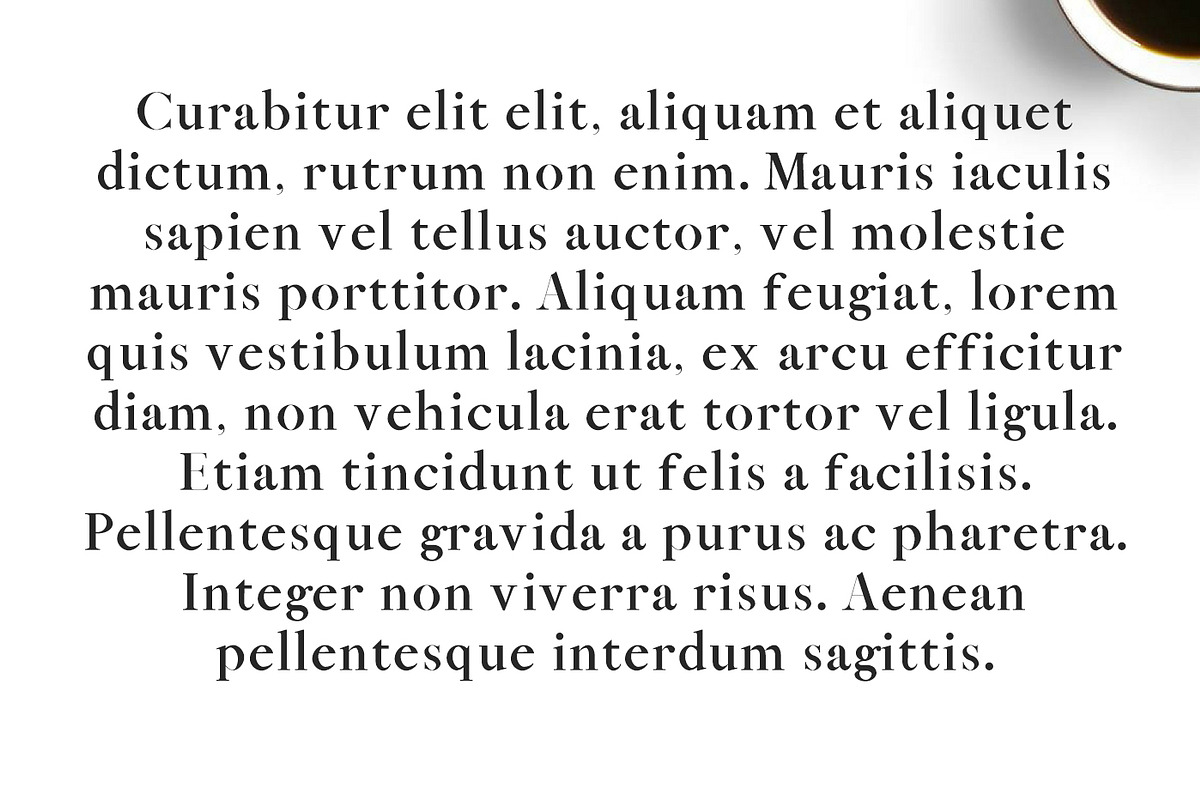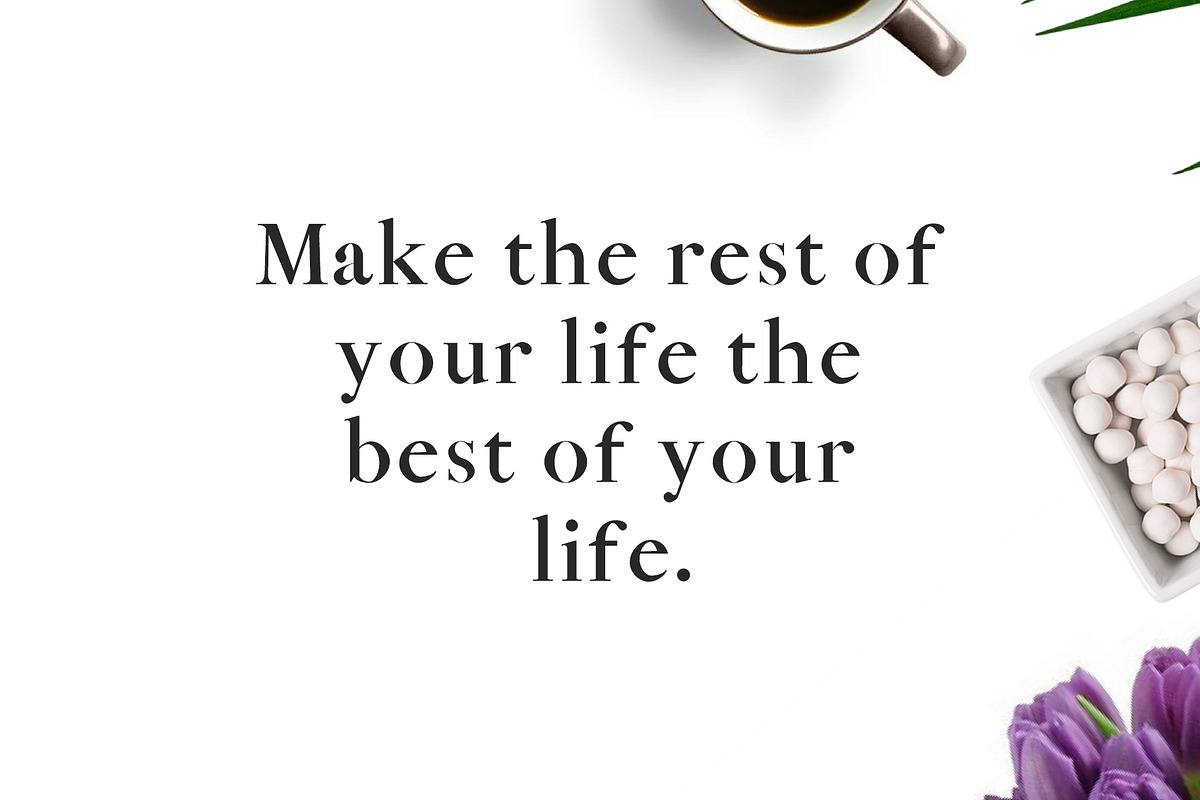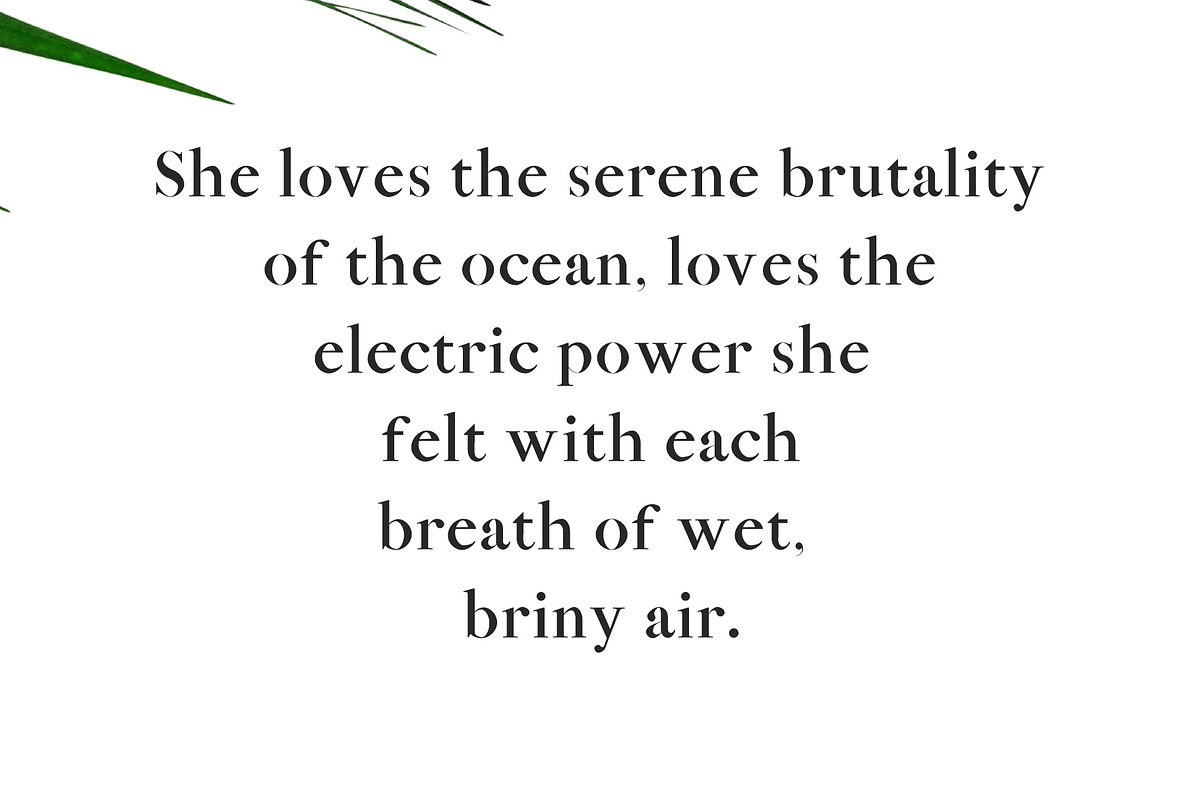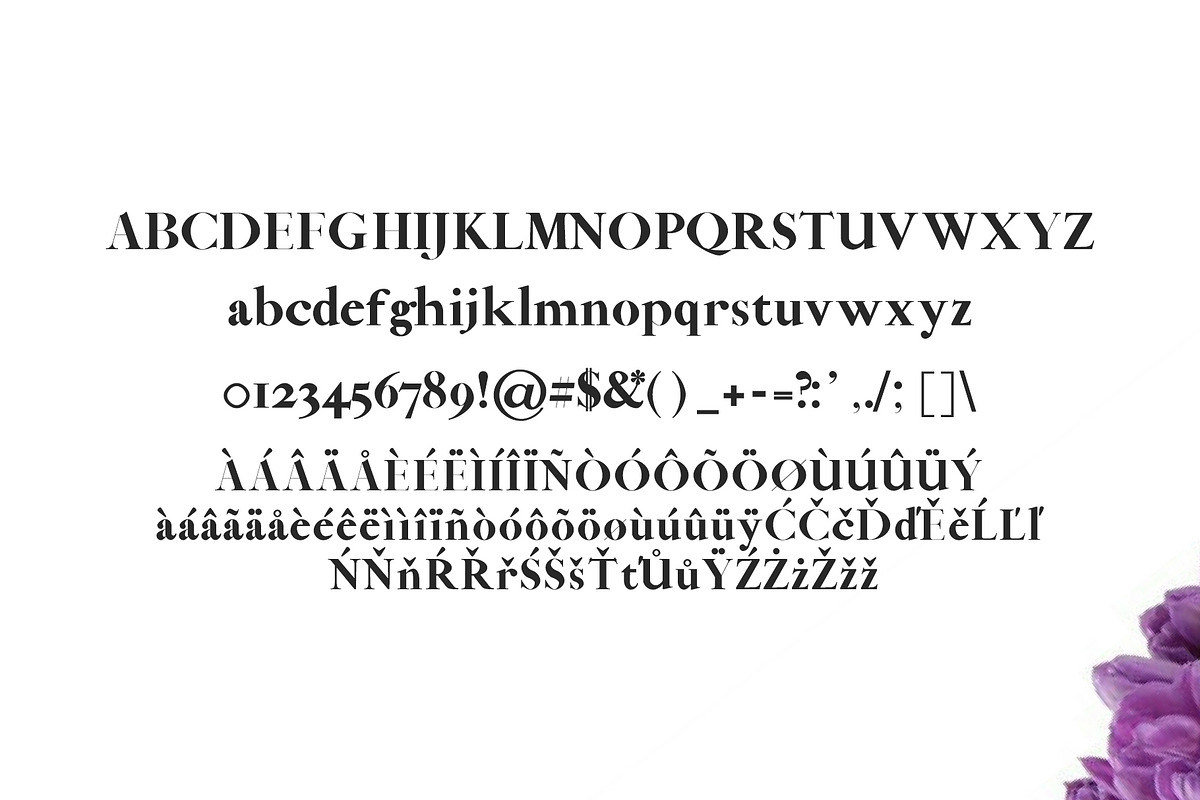
Abed Serif Font Family Pack
Abed Serif Font Family Pack by Creativetacos is a font selected for branding, posters, packaging, typography.
- Uppercase Multilingual Letters
- Lowercase Multilingual Letters
- Numbers & Punctuation
- Non English Characters ( Latin Supplement + Latin Extended A)
- Abed Thin
- Abed Light
- Abed Regular
- Abed Bold
- Abed Black
Why Abed Serif Font Family Pack is worth a look
Abed Serif Font Family Pack by Creativetacos fits naturally into Branding, posters, packaging, typography.